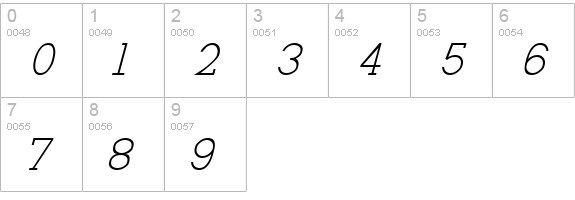
Stymie-Italic Italic is a distinctive, italic variant in the Stymie typeface family \xE2\x80\x94 well suited to design and typography projects.
The Stymie-Italic Italic font is a stylish and elegant typeface that adds a touch of sophistication to any design project. Its slanted italic style exudes a sense of modernity and creativity, making it perfect for use in branding, headlines, and other creative endeavors. The unique letterforms and subtle curves of the Stymie-Italic Italic font make it stand out from the crowd and give your text a distinctive look. Best of all, the Stymie-Italic Italic font is available for free download at FontsMarket.com. This means you can easily access this stunning font without any cost, making it a valuable resource for designers, artists, and creatives alike. Don't miss out on the opportunity to enhance your projects with the beauty and elegance of the Stymie-Italic Italic font - download it today and elevate your designs to new heights.